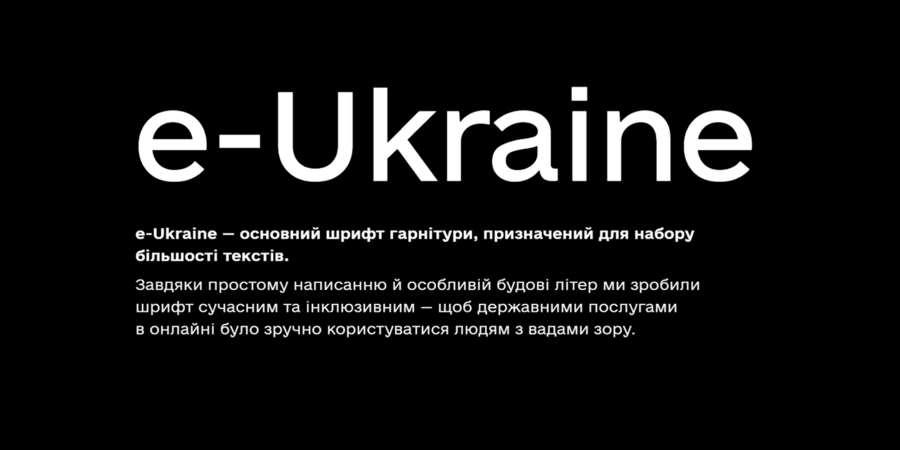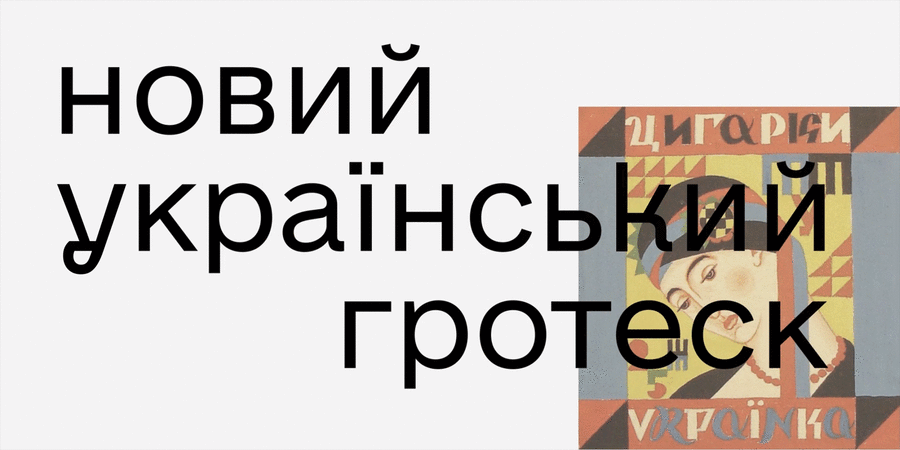
About e-UkraineThe e-Ukraine typeface is "Ukrainian Helvetica". This font family is used by all state authorities of Ukraine and has become the basis of the state’s visual style online.
The font family consists of three sets, each of which performs a special function and helps to maintain style unity in headlines, documents, announcements, brochures, etc.
e-Ukraine is the main set of the font family, designed for text typesetting. Due to the simple shapes and special structure of letters, we have made the font modern and inclusive, so that public services online can be conveniently used by people with visual impairments.
e-Ukraine Head is a display version for headlines with alternative Ukrainian letters. These letters have absorbed the traditional forms inherent in the symbols of Ukrainian graphic culture of the early XX century, which partially imitated the aesthetics of the Ukrainian Baroque.
e-Ukraine NAME is the font style for writing the names of state institutions in logos.
The font has built-in glyphs of special characters, state symbols and the Diia logo in basic and inverted versions of different scales.
The e-Ukraine typeface was developed by Fedoriv agency by order of the Ministry of Digital Transformation of Ukraine in 2019. The font designer is Dmytro Rastvortsev.